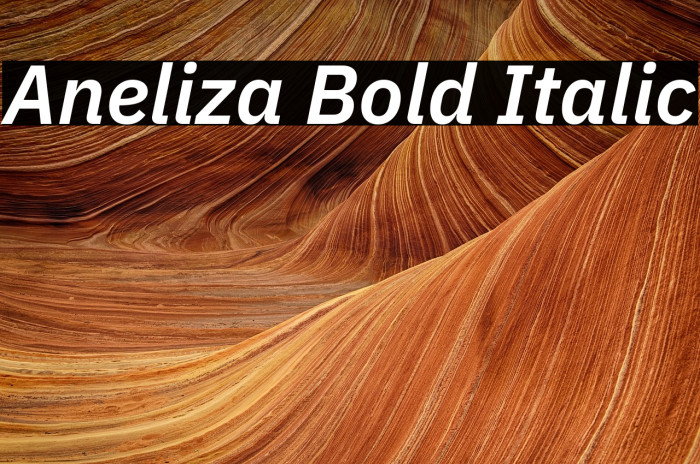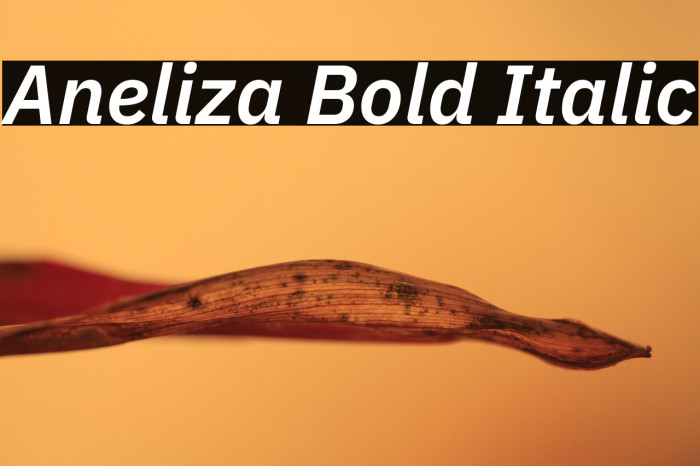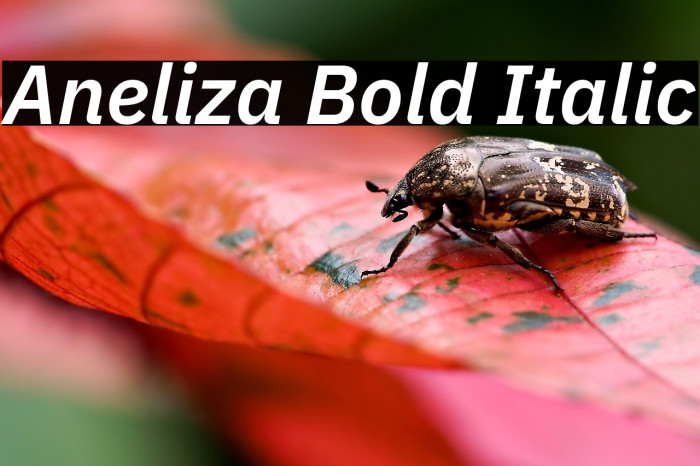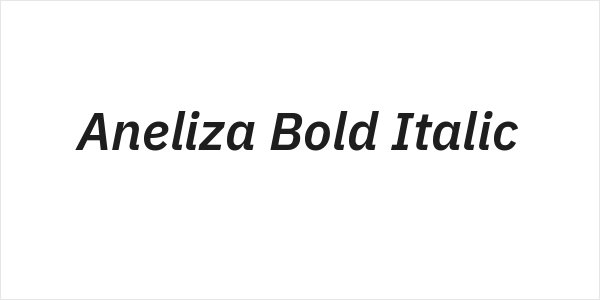
Aneliza Bold Italic Font
Aneliza Bold Italic Description
This font features a bold and italic style, combining strength with elegance. The characters are slightly slanted, giving a dynamic and forward-moving appearance. The strokes are thick and consistent, providing a strong visual impact. The uppercase letters are well-proportioned, while the lowercase letters maintain a smooth flow. Numerals are clear and distinct, ensuring readability. Special characters are crafted with precision, matching the overall aesthetic. The font's design is modern yet timeless, making it versatile for various applications.
Use CaseHeadlines, Logos, Branding
Proposed ProjectsIdeal for branding, advertising, headlines, and editorial design where a strong and elegant typeface is needed.